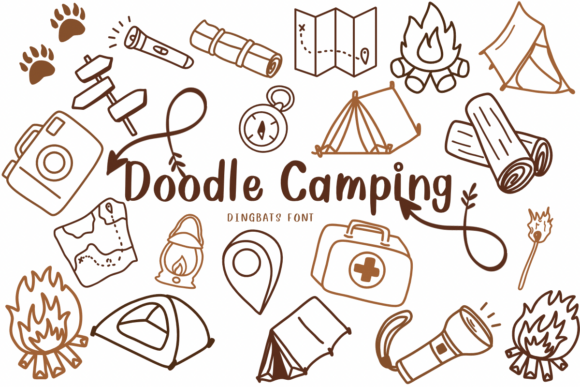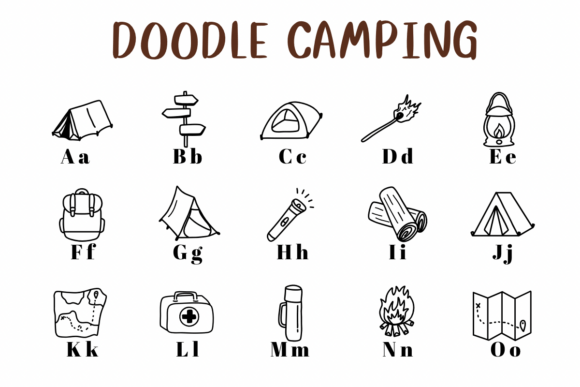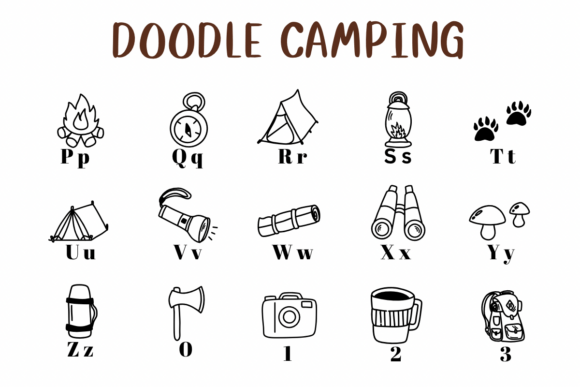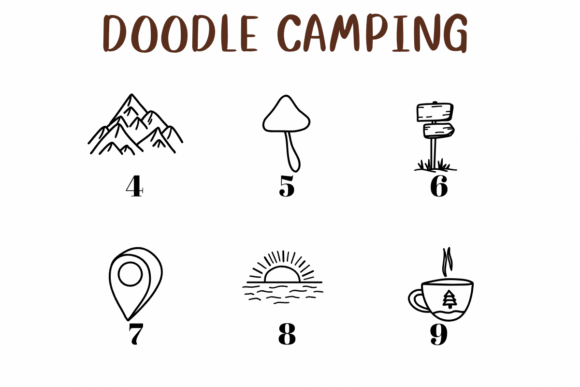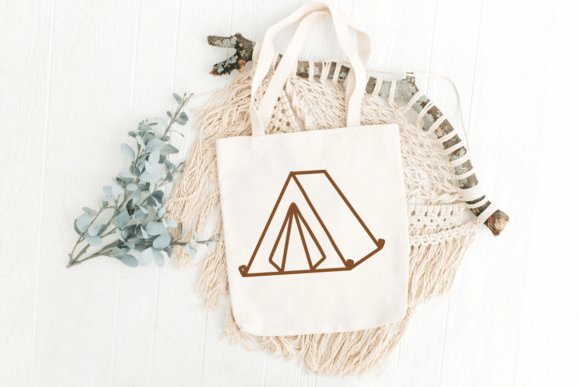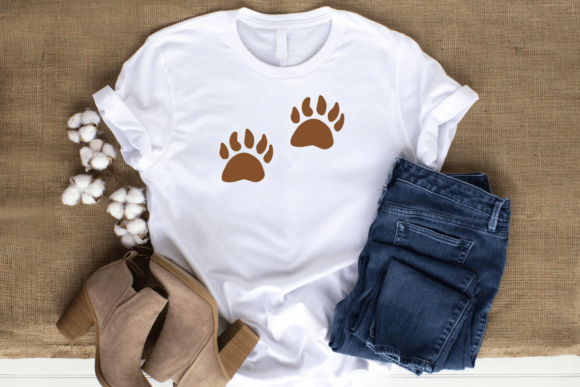
Doodle Camping Font
Doodle Camping is a rustic and adventurous dingbat font featuring a variety of hand-drawn outdoor icons—from tents and campfires to flashlights and maps. It’s the perfect design companion for nature-themed projects, camping gear branding, adventure invitations, and more.